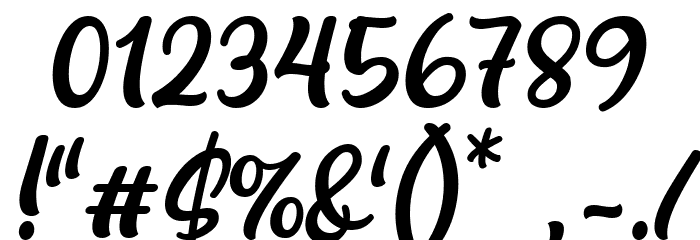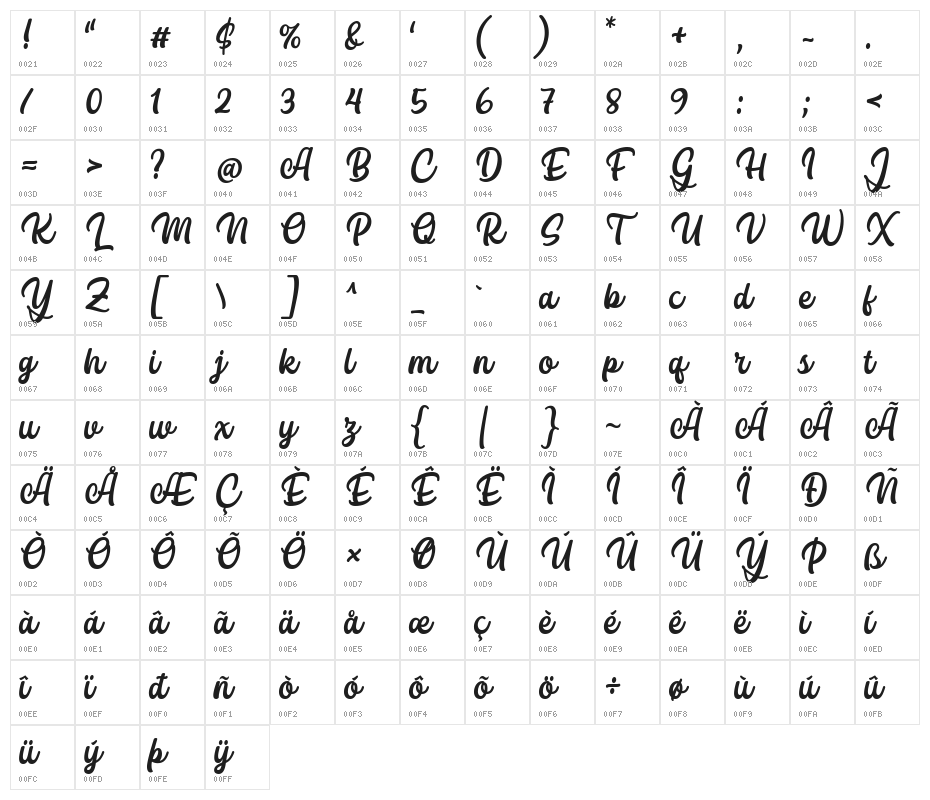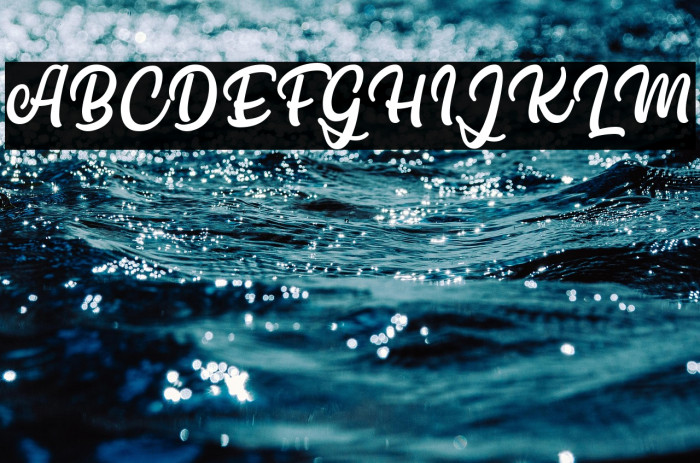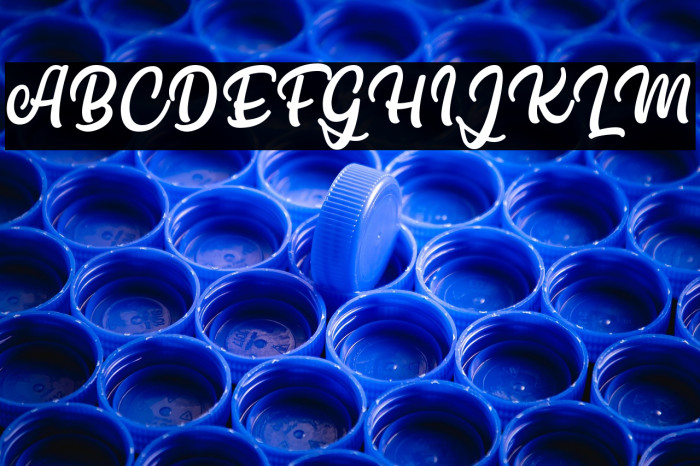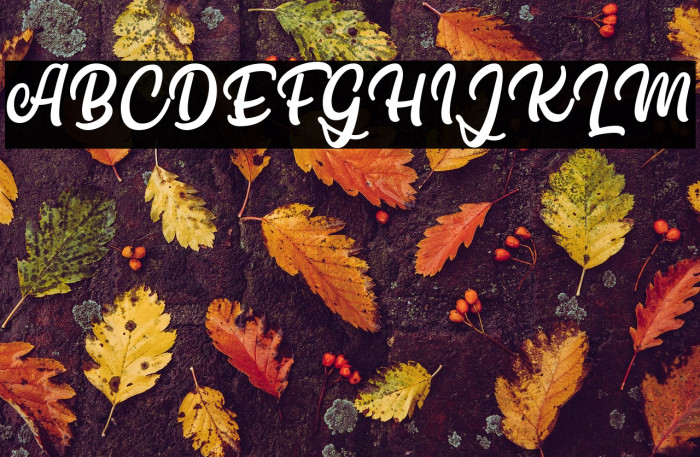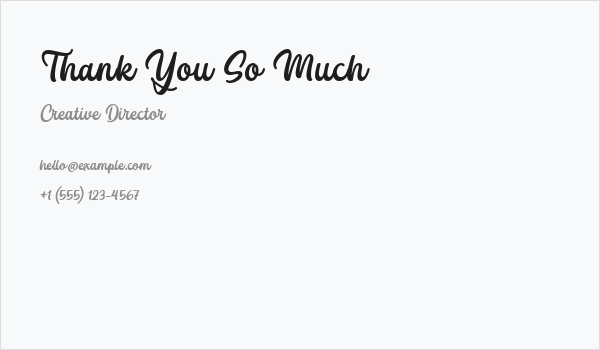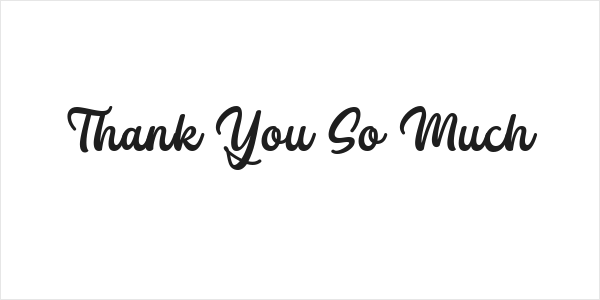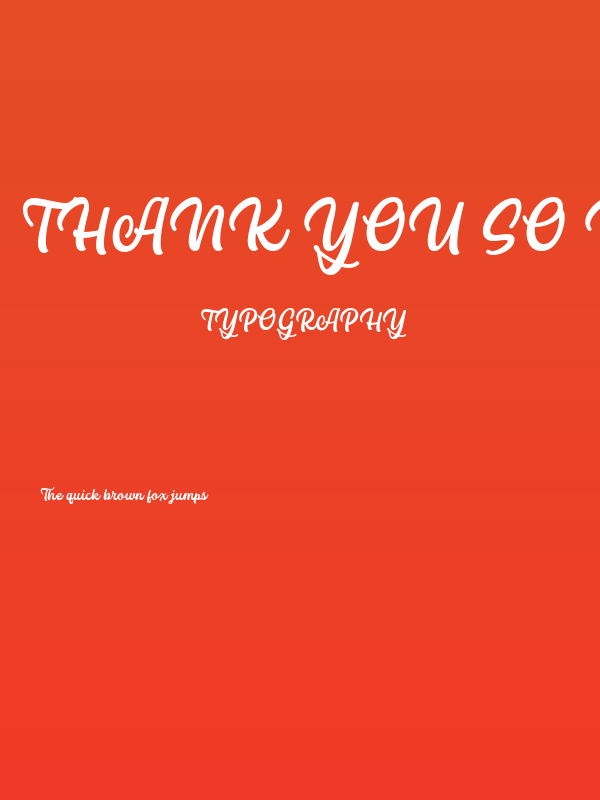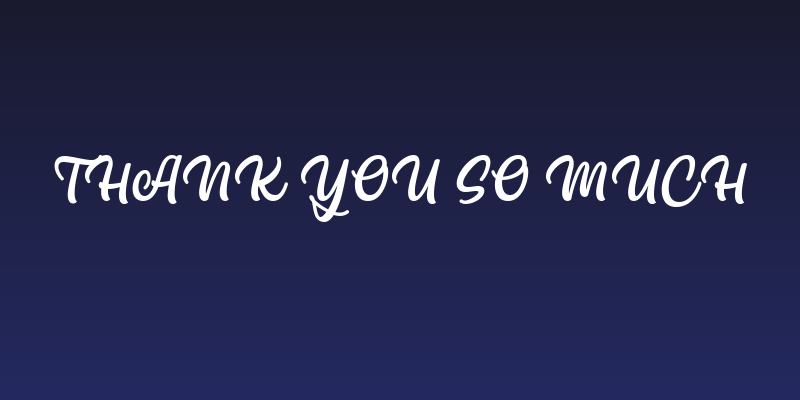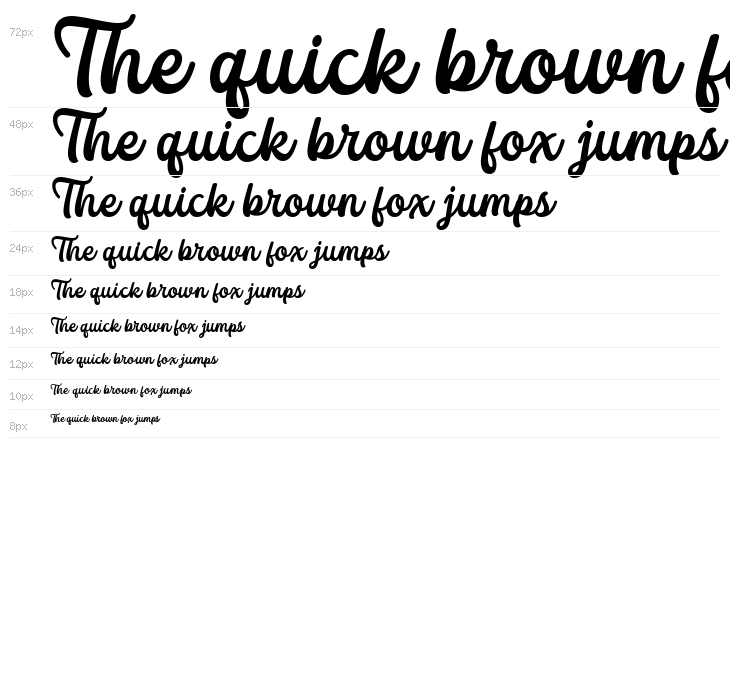
Thank You So Much Font
Thank You So Much Description
This font features a bold and flowing script style, characterized by its smooth, cursive letterforms that convey a sense of elegance and fluidity. The uppercase letters are ornate and slightly larger than the lowercase, which are more rounded and connected, enhancing the script's cohesive appearance. The numerals are consistent with the overall style, maintaining the same bold and flowing characteristics. Special characters are designed to match the script's aesthetic, ensuring a harmonious look across all glyphs. This font's design is both decorative and functional, making it suitable for various creative applications.